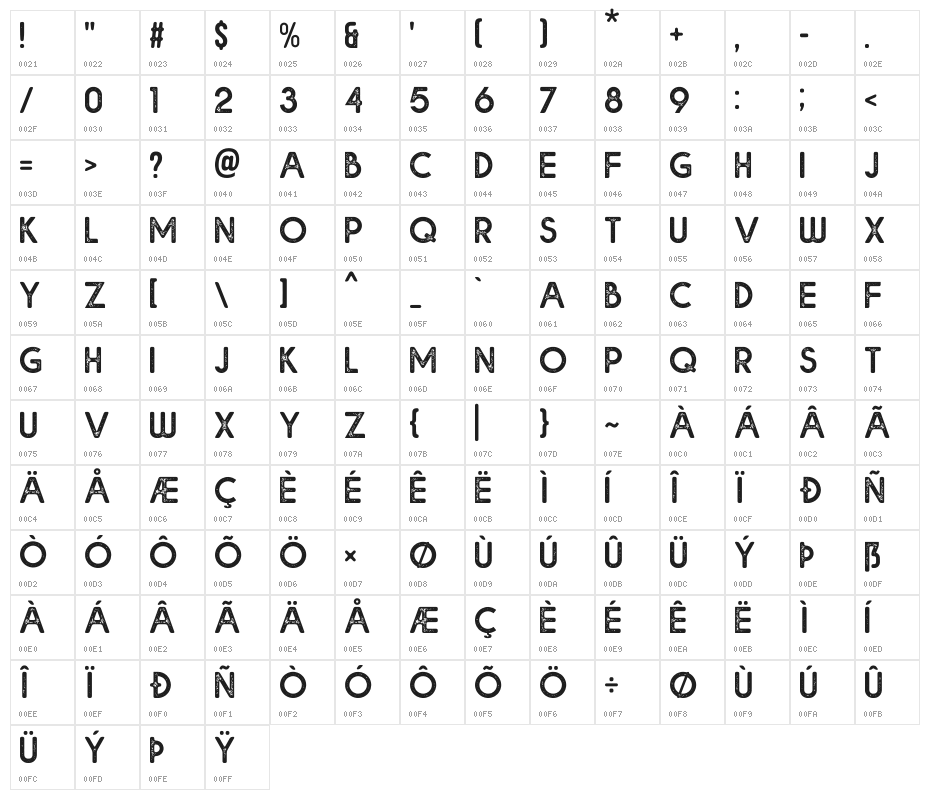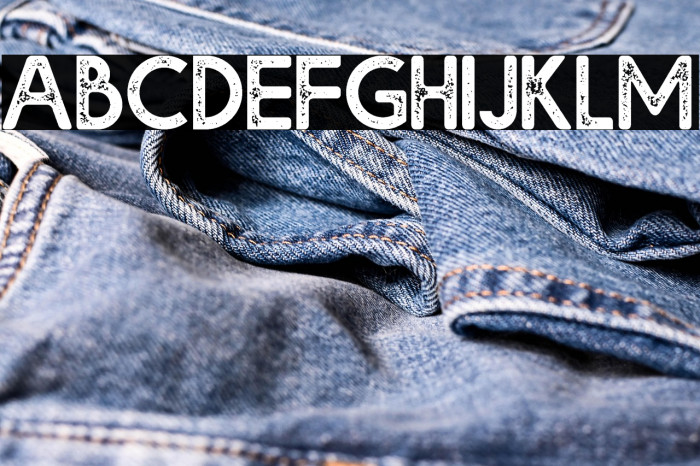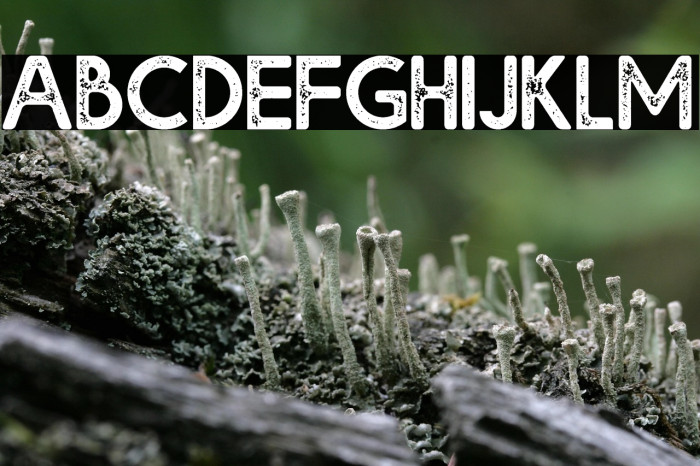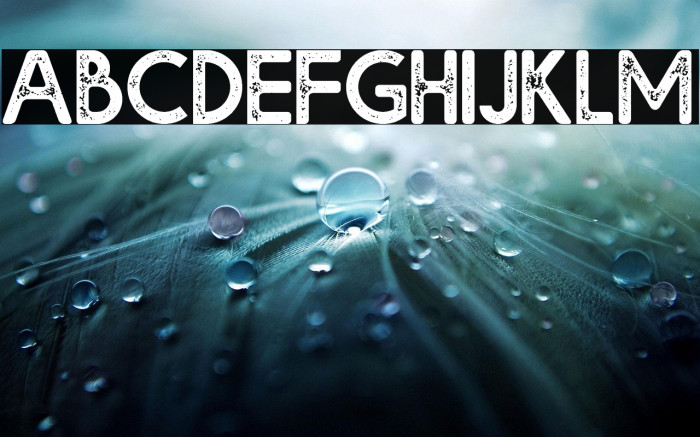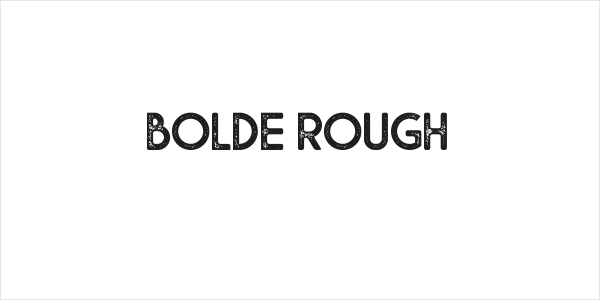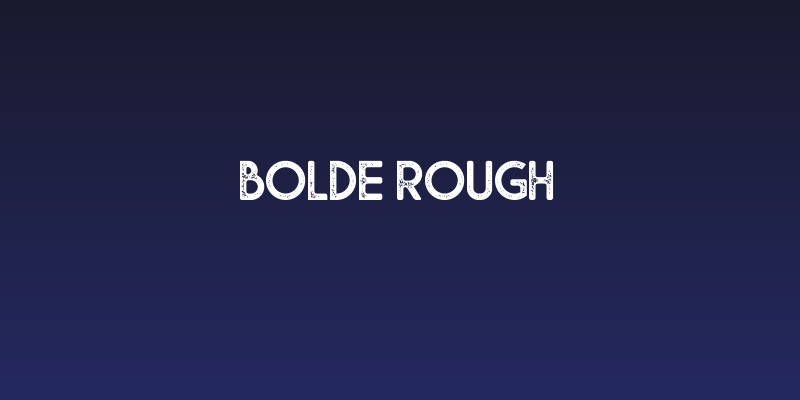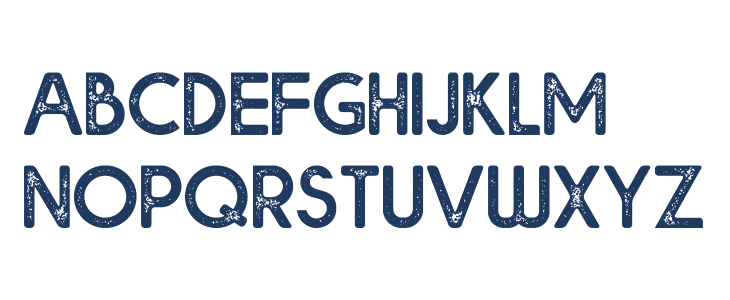
Bolde Rough Font
Bolde Rough Description
This font features a bold and rough texture, giving it a distressed and vintage appearance. The characters are uppercase and lowercase, with a consistent roughness that adds a tactile, worn feel. The numbers and special characters maintain this rugged style, making the font ideal for projects that require a gritty, authentic look. The strokes are thick, contributing to its boldness, while the rough edges provide a unique character. This font is perfect for creating eye-catching designs that need a touch of edginess and personality.